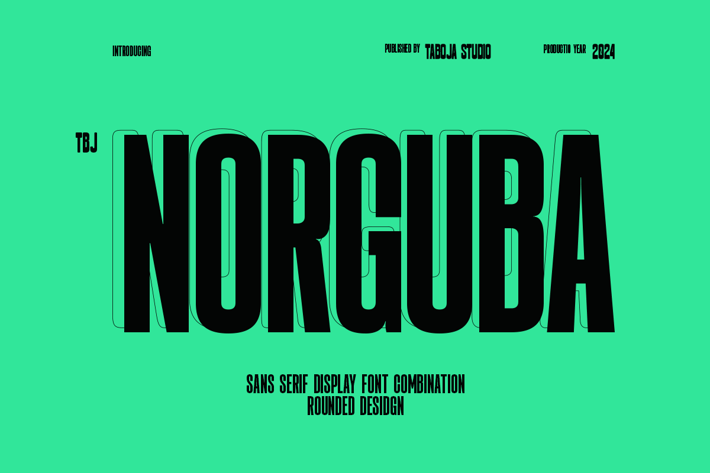
Norguba - Versatile Display Sans Serif Font
Introducing TBJ Norguba, a versatile display type font that embodies the essence of contradictions. With its condensed regular style and joyful variable font feature, Norguba seamlessly blends elegance with a touch of awkwardness, offering a unique typographic experience. Its design strikes a delicate balance between youthfulness and sophistication, appealing to a wide range of audiences.
Whether you're aiming for a relaxed and sensuous vibe or seeking a more versatile and dynamic look, Norguba has got you covered. Itβs perfect for brand identities with heart, packaging, and genuine, effortless messaging. Posters, billboards and motion graphics that fly off the screen.
TBJ Norguba Includes:
Uppercase Regular & Joyful
Alternates And Ligatures
Numerals And Punctuation
Accented characters